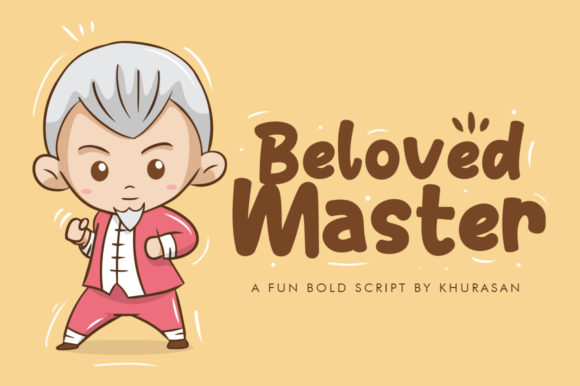
The Joy of Beloved Master: A Bold Display Font with a Cheerful Style
I’ll never forget the moment I stumbled upon Beloved Master, a bold display font that instantly brightened up my design workflow. I was working on a project for a client who needed a cheerful and eye-catching title for their branding campaign. As I scrolled through my font library, I felt like I was on a mission to find the holy grail of fonts – something that would make their brand stand out. And then, I saw it: Beloved Master with its unique charm and bold personality.
• ✅ Unique and bold design: Beloved Master has a distinct style that sets it apart from other fonts.
• ✅ Cheerful and playful vibe: This font is perfect for designs that require a friendly and approachable tone.
• ✅ Easily readable: Despite its boldness, Beloved Master remains clear and legible, even at smaller sizes.
• ⚠️ Limited use cases: Due to its bold and playful nature, Beloved Master might not be suitable for more formal or professional designs.
• ⚠️ Glyph limitations: While Beloved Master has a range of glyphs, it might not have every special character or symbol you need.
The story behind Beloved Master begins with a designer who wanted to create a font that would bring joy and positivity to people’s lives. With a passion for typography and a love for playful design, they crafted a font that would be both bold and cheerful. And so, Beloved Master was born – a font that’s sure to inspire creativity and happiness.
Q: What type of designs is Beloved Master best suited for?
Beloved Master is perfect for designs that require a bold and cheerful tone, such as branding, packaging, and advertising.
Q: Does Beloved Master come with a wide range of glyphs?
While Beloved Master has a range of glyphs, it might not have every special character or symbol you need. You can check the font documentation for more information.